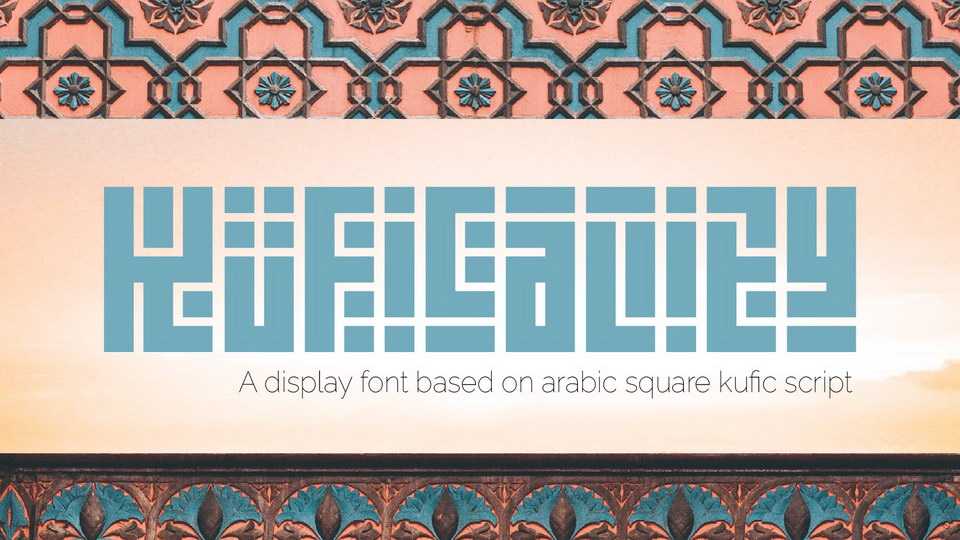
Download Kuficality font, a display typeface based on Arabic Square Kufic calligraphy. Kuficality is great as logos for business and personal identity. Unique design for your business in a few seconds.
Designer: Hastype Studio